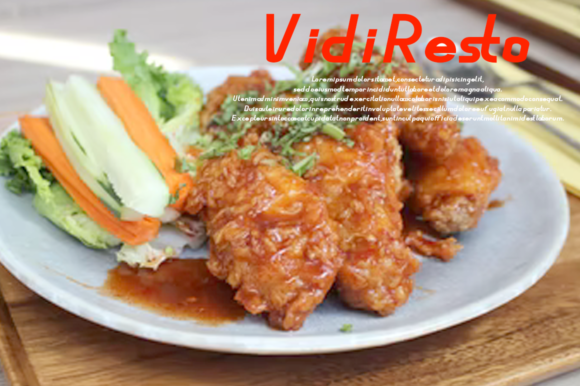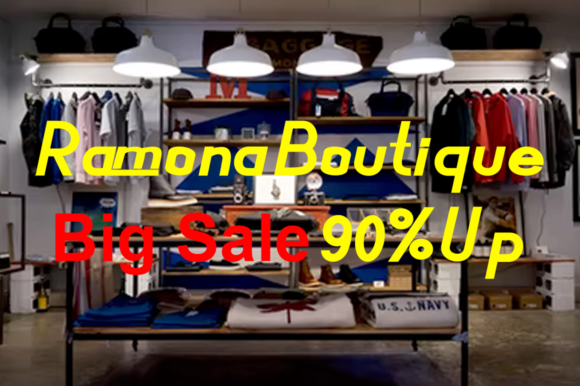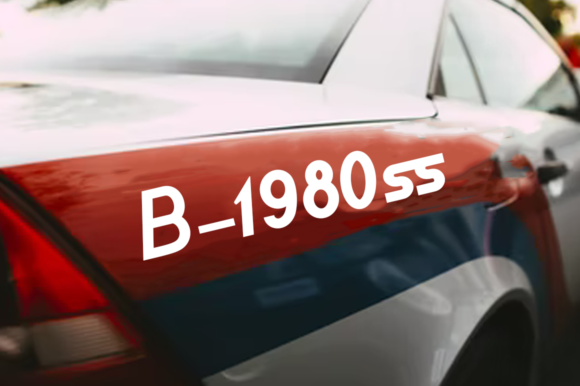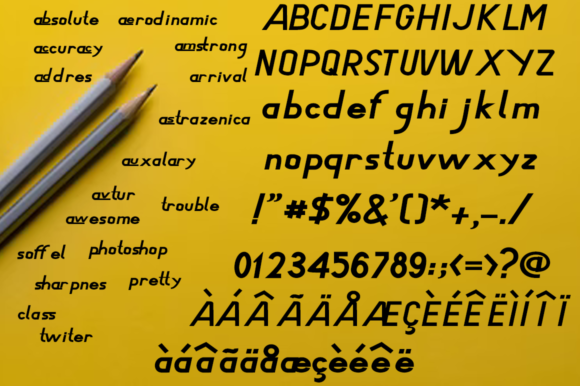
The Power of Atmosphere Font: Elevating Your Designs with a Minimal Touch
I’ll never forget the time I was working on a branding project for a new coffee shop. I had spent hours perfecting the logo, but something felt off. The font I had chosen just wasn’t doing justice to the beautiful design. I scoured the internet for the perfect font, but nothing seemed quite right. That’s when I stumbled upon Atmosphere font. It was like a breath of fresh air – clean, minimal, and effortlessly cool. In this article, I’ll share my love for Atmosphere font, its features, and how to make the most of it in your designs.
An Honest Review of Atmosphere Font
• ✨ Clean and minimal aesthetic: Atmosphere font is perfect for designers who love simplicity and elegance.
• ✅ Highly versatile: This font can be used for a wide range of projects, from branding and advertising to packaging and digital media.
• 💡 Excellent readability: The font is clear and easy to read, even at small sizes.
While Atmosphere font is amazing, it’s not perfect. Here are a few things to keep in mind:
• 🤔 Limited character set: Some users have noted that the font could benefit from a wider range of characters and glyphs.
• ⚠️ Not ideal for body text: While Atmosphere font is great for headlines and titles, it may not be the best choice for longer blocks of text.
The Story Behind Atmosphere Font
Atmosphere font was designed with the goal of creating a clean and minimal sans-serif font that could be used for a wide range of projects. The designer wanted to create a font that was both elegant and versatile, with a focus on simplicity and readability. While the exact story behind the font’s creation is unclear, it’s evident that the designer succeeded in creating a beautiful and functional font.
Q: Is Atmosphere font suitable for body text?
A: While Atmosphere font is great for headlines and titles, it may not be the best choice for longer blocks of text.